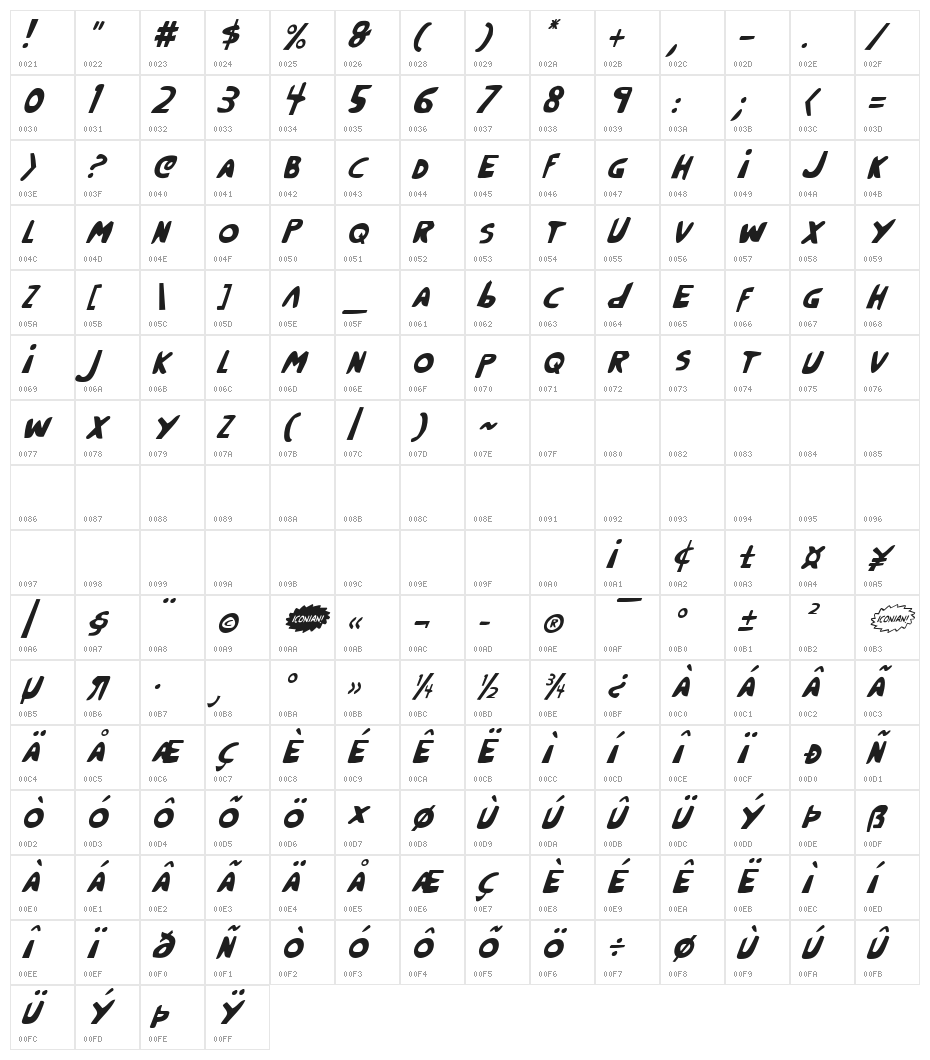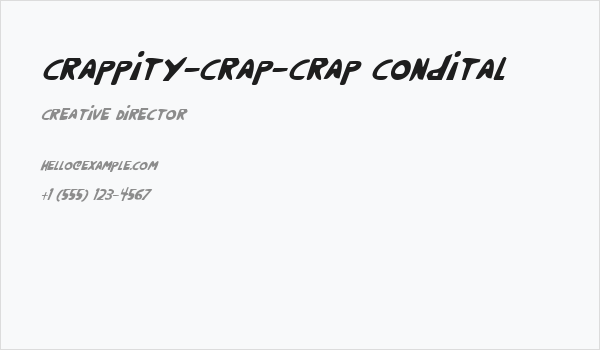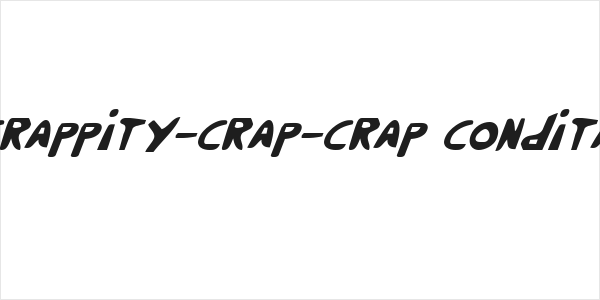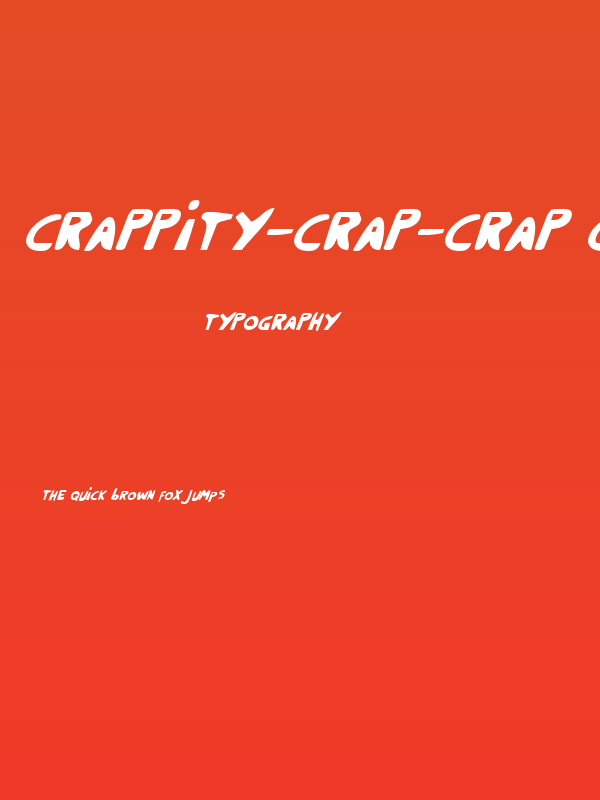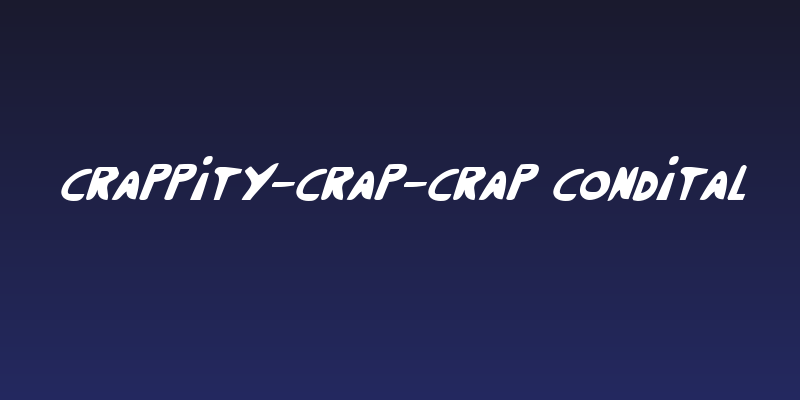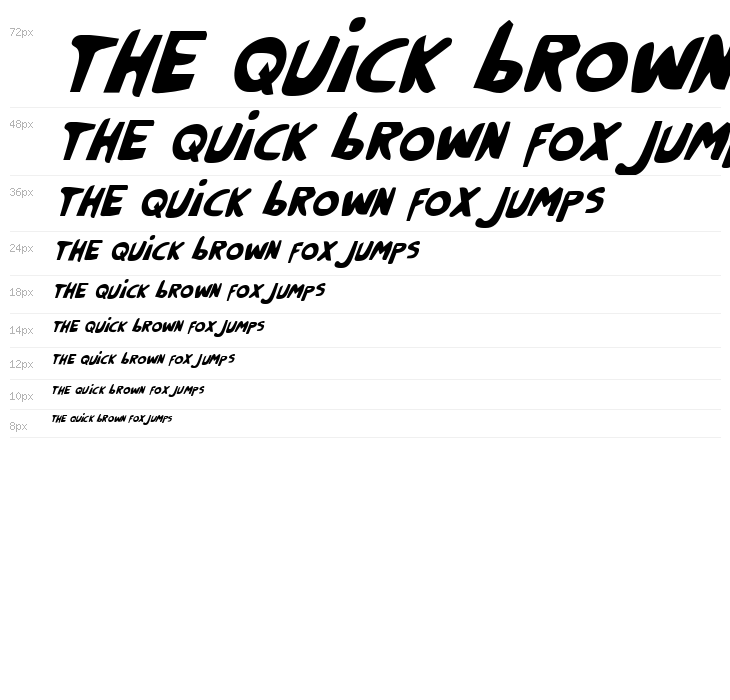
Crappity-Crap-Crap CondItal Font
Crappity-Crap-Crap CondItal Description
This font features a bold and dynamic style with a strong italic slant, giving it a sense of motion and energy. The characters are condensed, enhancing the compact and impactful appearance. The strokes are thick and consistent, providing a medium contrast that ensures readability while maintaining a playful and informal vibe. The uppercase and lowercase letters share a cohesive design, with rounded edges and a slightly irregular form that adds a touch of whimsy. The numerals and special characters are equally bold, fitting seamlessly with the overall aesthetic. This font is well-suited for projects that require a lively and engaging typeface.
| Overall Style | Playful and Dynamic |
| Proposed Projects | Ideal for posters, logos, comic books, or any design needing a fun and energetic typeface. |